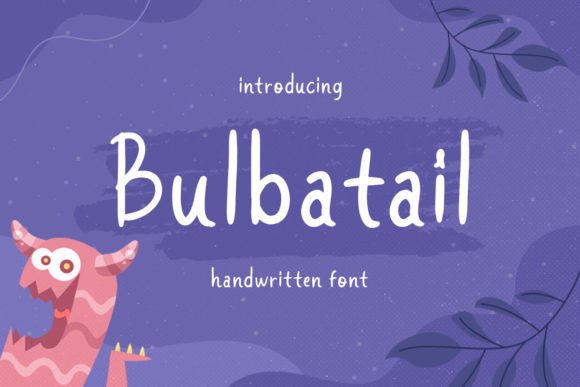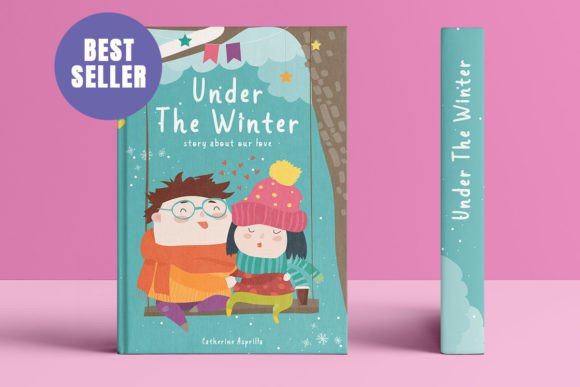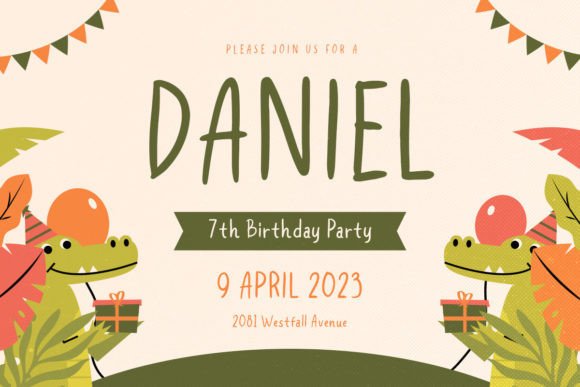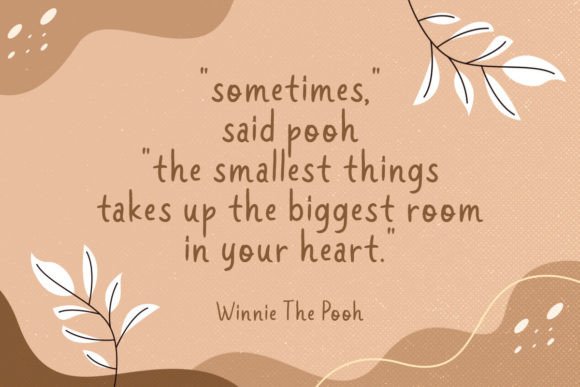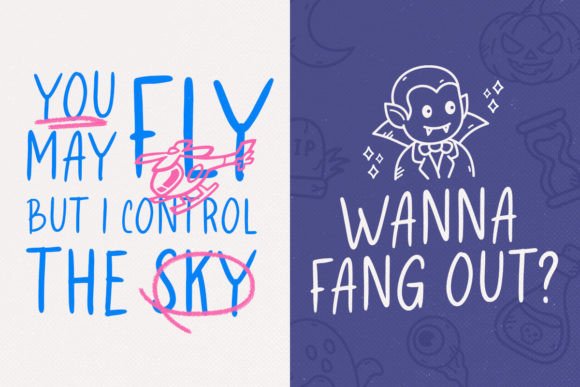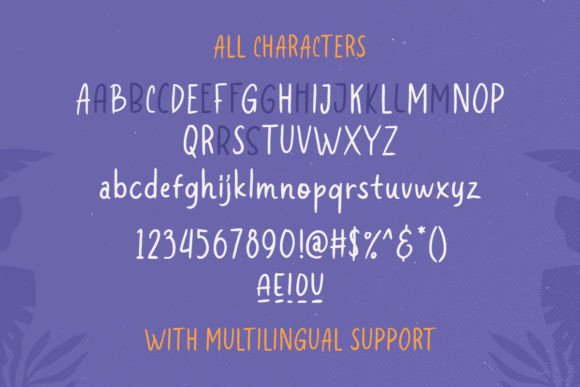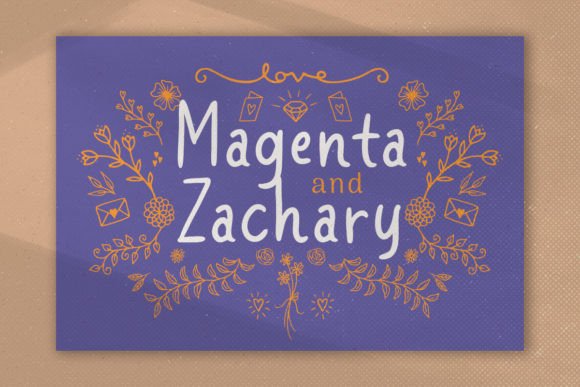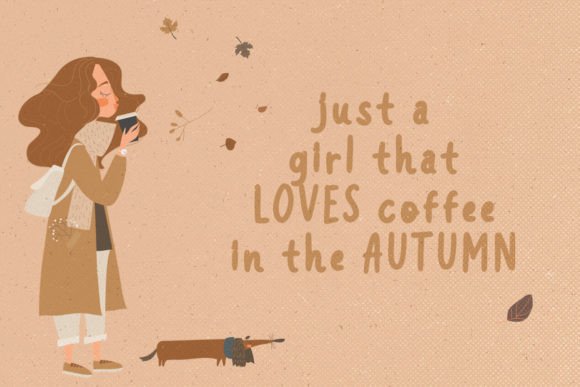
Bulbatail Font
What Is Bulbatail Font?
Bulbatail Font is a cute and casual handwritten script designed to bring a friendly, approachable feel to your creative projects. With its smooth, playful strokes and clean letterforms, Bulbatail blends charm with versatility, making it perfect for everything from professional branding to personal notes. Whether you’re aiming for something fun or refined, this font adds personality and warmth to your designs.
Its inviting style makes it an essential choice for designers who value authentic, handcrafted typography.
Bulbatail is highly versatile and adapts beautifully to many applications. For example, it’s ideal for logos and branding. The casual script creates a fresh, modern identity that feels genuine and memorable.
Wedding invitations, greeting cards, and event stationery feel more personal and joyful with Bulbatail’s handwritten look.
Product packaging and labels stand out with Bulbatail’s approachable charm. From beauty products and fashion items to gourmet goods, this font elevates your packaging design.
Editorial layouts, magazines, and book covers gain a friendly, stylish flair with Bulbatail’s clean letterforms.
Social media graphics, blog headers, and website banners also look polished and engaging with this script, helping your digital content connect with audiences.
Even advertising materials and promotional flyers feel more unique and inviting when you use Bulbatail.
Why Should You Choose Bulbatail Font?
One of Bulbatail’s strongest qualities is its readability. Even with its handwritten, casual flow, each letter stays clear and legible in all sizes. Whether you’re working on small labels or large headlines, your text will always look crisp and professional.
It pairs beautifully with minimalist serif or sans-serif typefaces, giving you flexibility to create balanced, modern layouts.
Designers love that Bulbatail looks polished out of the box, saving time while ensuring consistent, high-quality results.
Bulbatail Font brings a friendly, casual elegance to every project. Its smooth strokes and handcrafted feel create an emotional connection that makes your designs feel genuine and relatable.
Even minimalist compositions gain personality and warmth with Bulbatail. Whether you’re crafting an invitation, building a brand identity, or designing social media posts, this font elevates your work effortlessly.
Bulbatail Font is more than just a handwritten script—it’s a versatile design asset that helps you communicate ideas with clarity, style, and warmth. From logos and packaging to invitations and digital content, this font adapts seamlessly to any project and leaves a lasting impression.